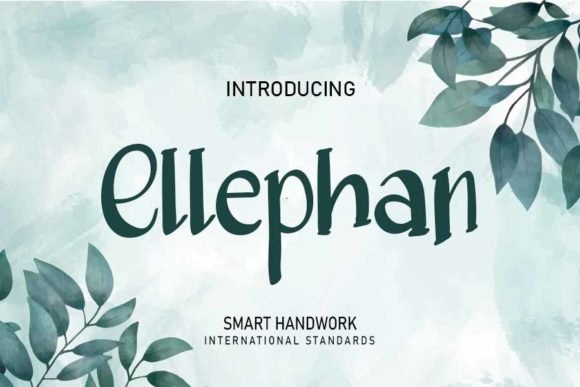
Introduction to Ellephan Font
Ellephan is simple and playful handwritten font.
Key Features of Ellephan Font
Why Choose Ellephan Font?
Ellephan Font offers exceptional quality and versatility, making it a valuable addition to your design toolkit. Whether you’re creating for personal projects or commercial use, Ellephan Font delivers professional results.